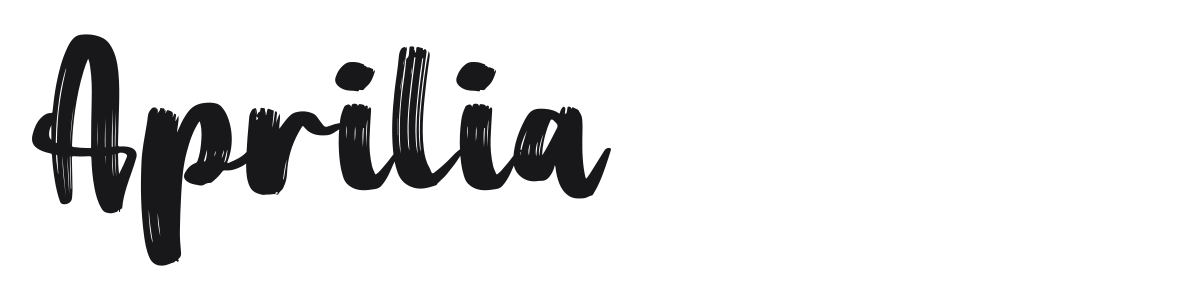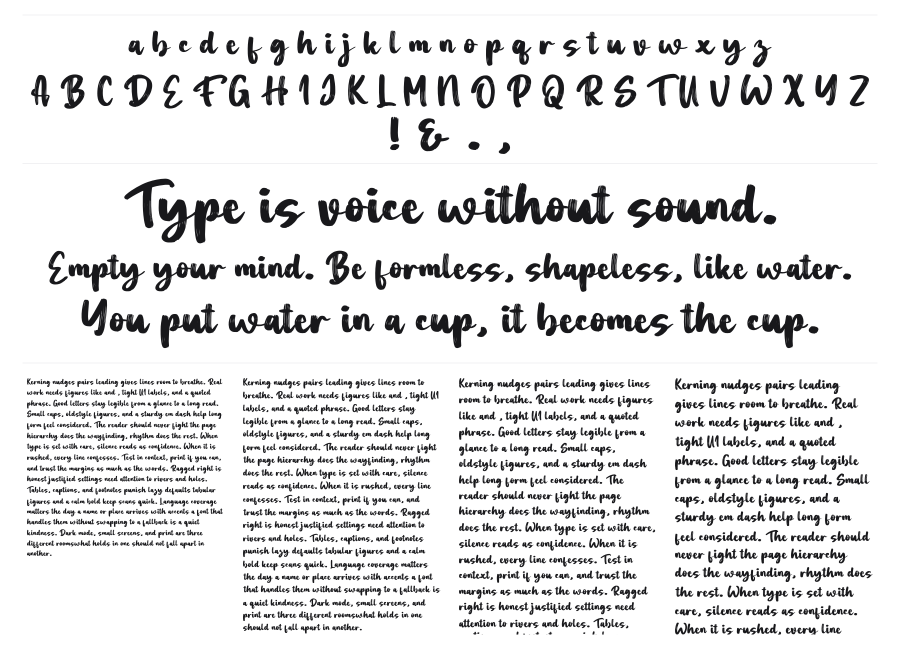
Aprilia
Aprilia is a casual brush script with rough bristle texture and strong thick-to-thin stroke contrast that makes it look hand-painted rather than drawn. The letters flow together in a loose, energetic cursive rhythm with a pronounced forward lean. It reads as authentic and approachable at headline and display sizes.